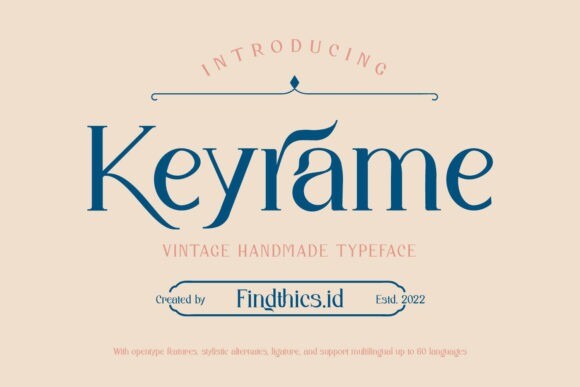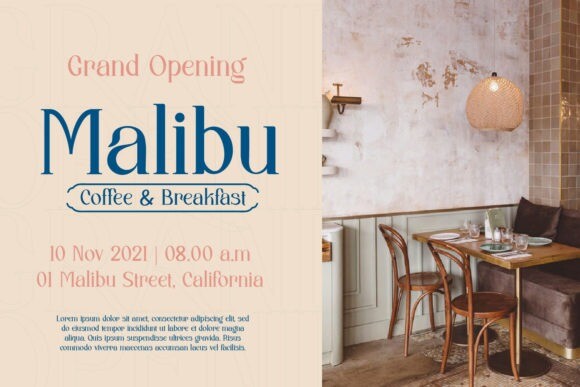
Keyrame Font
Keyrame is a vintage serif font that will make your design more beautiful and inspiring. This font is suitable for any project such as branding, print template, logo, etc.